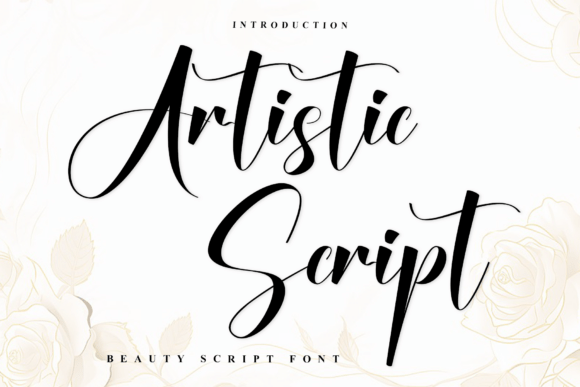
The Magic of Artistic Script Font: Elevating Design with Elegance and Flair
I still remember the time I was working on a wedding stationery project, and my client asked for a font that exuded luxury, romance, and sophistication. I scoured the internet, tried countless fonts, but nothing seemed to fit the bill. That was until I stumbled upon Artistic Script font. Its flowing curves, elegant swashes, and refined lettering instantly captivated me. In this article, I’ll share my love for this beautiful font, its features, and provide a comprehensive guide on how to use it to elevate your designs.
What Makes Artistic Script Font Special?
Artistic Script font is a modern script typeface that perfectly blends the elegance of calligraphy with the expressive fluidity of handwritten lettering. Its long, sweeping ascenders and descenders, delicate swashes, and graceful ligatures bring a sense of movement and luxury to every composition.
- ✨ Sophisticated contrast between thick and thin strokes adds dynamic character
- ✅ Excellent legibility across both print and digital formats
- ✨ Effortless access to a complete set of stylistic alternates, swashes, and decorative elements through PUA encoding
- 💕 The font’s romantic and elegant vibe makes it perfect for wedding stationery, fashion branding, and high-end packaging
- 👍 Excellent legibility, even at small sizes
- 💫 The range of stylistic alternates, swashes, and ligatures offers endless design possibilities
- 🤔 Occasional kerning issues: As with any script font, some manual kerning may be required for optimal results
- ⚠️ Not suitable for body text: Artistic Script font is best used for headlines, titles, or short paragraphs
The Backstory of Artistic Script Font
Artistic Script font was designed by a team of typographers who sought to create a modern script typeface that would capture the essence of hand-written lettering. Inspired by the flowing curves of calligraphy and the expressiveness of handwritten scripts, they crafted a font that would bring elegance and sophistication to any design.
| Font Name | Artistic Script Font |
| Author | Creatype Designer |
| What is the best use for Artistic Script font? | Artistic Script font is perfect for wedding stationery, fashion branding, high-end packaging, and editorial layouts where elegance and sophistication are required. |
| Can I use Artistic Script font for body text? | No, Artistic Script font is best used for headlines, titles, or short paragraphs. Its elegant and refined design makes it less suitable for body text. |
| Is Artistic Script font suitable for digital use? | Yes, Artistic Script font has excellent legibility across both print and digital formats, making it suitable for a range of digital applications. |